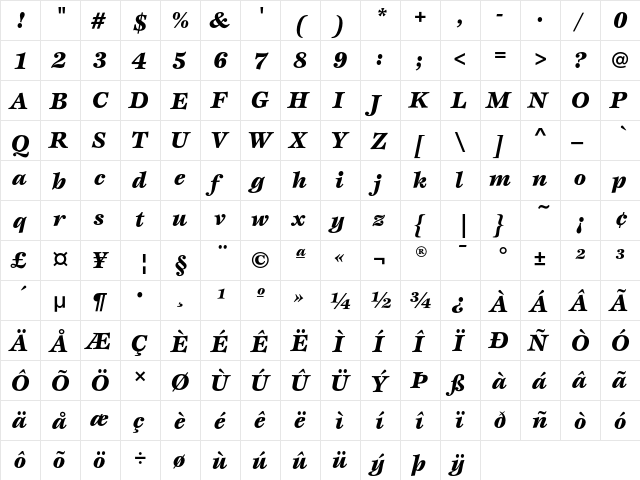
EspritEF BlackItalic
Design Context for EspritEF Typeface
EspritEF is a composed and adaptable typeface that performs quietly and consistently across a wide range of design contexts. Its italic angle brings a sense of urgency and motion to the letterforms.
Pro Tip: Try EspritEF for annotation and caption copy alongside an upright companion — the contrast in angle creates a dynamic but ordered typographic system.